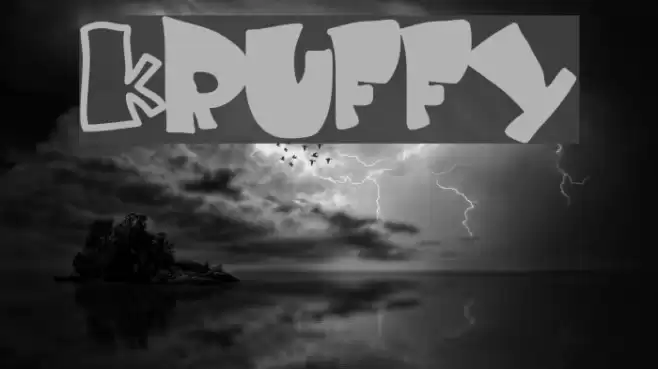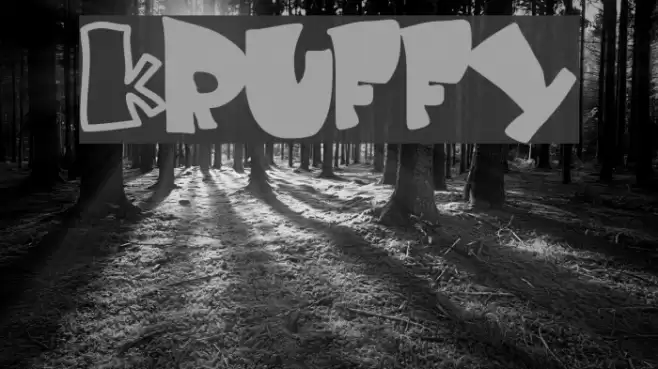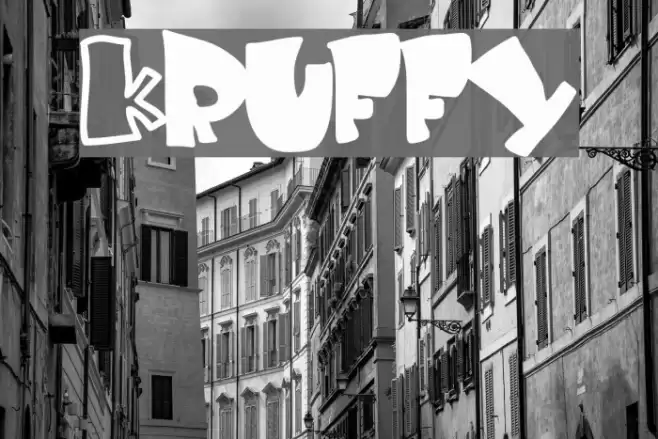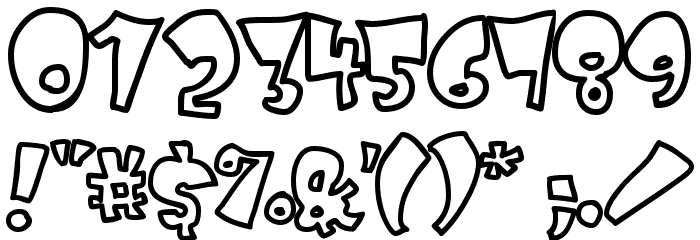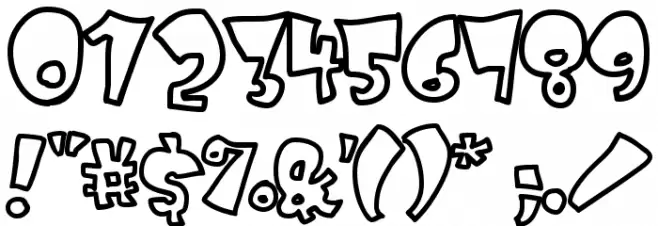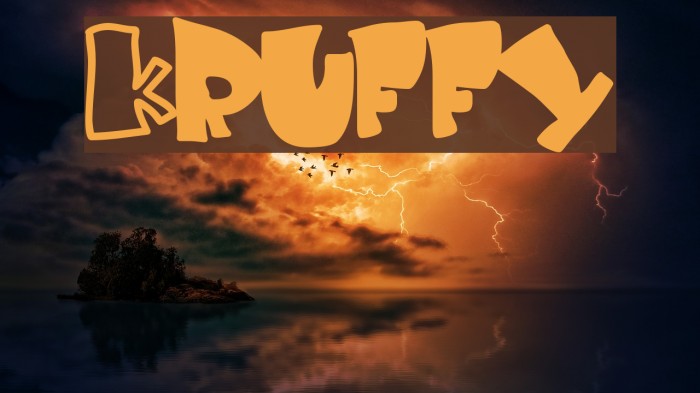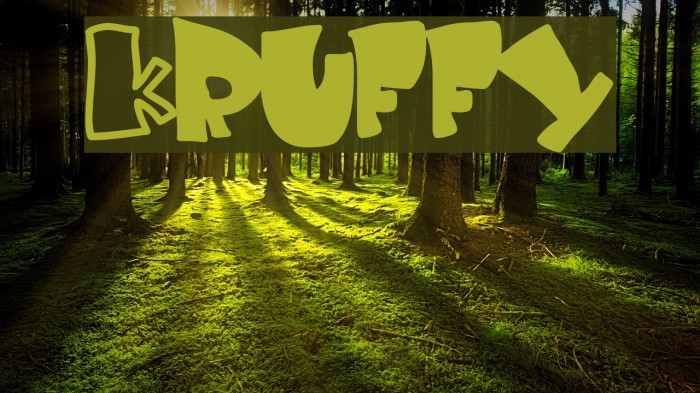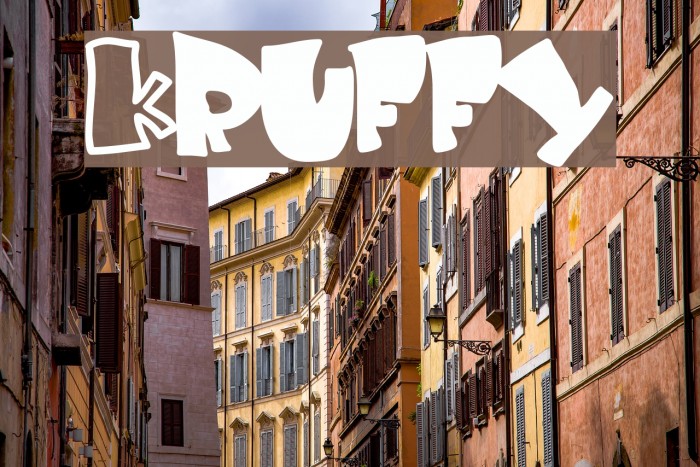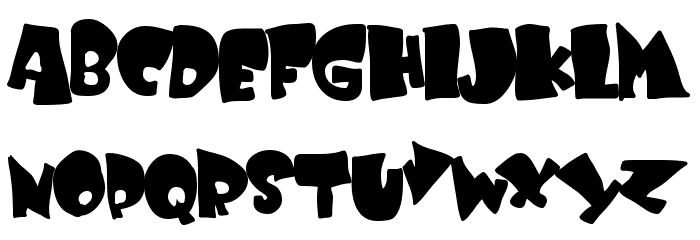
Kruffy Font
Kruffy Description
This playful and bold font features a cartoonish, hand-drawn style with exaggerated, uneven lines and a whimsical flair. The uppercase letters are large and chunky, while the lowercase letters maintain a similar playful aesthetic. The numbers and special characters follow the same quirky design, making the font ideal for creative and informal projects. Its unique character shapes and bold presence make it stand out, adding a fun and lively touch to any design. The font's irregularity and bold strokes give it a dynamic and energetic feel, perfect for capturing attention.
A playful, bold, and cartoonish font with a hand-drawn style from Decorative fonts.
- Proposed Projects: Ideal for children's books, comic strips, playful branding, and party invitations.
- Overall Style: Playful, Cartoonish, Whimsical